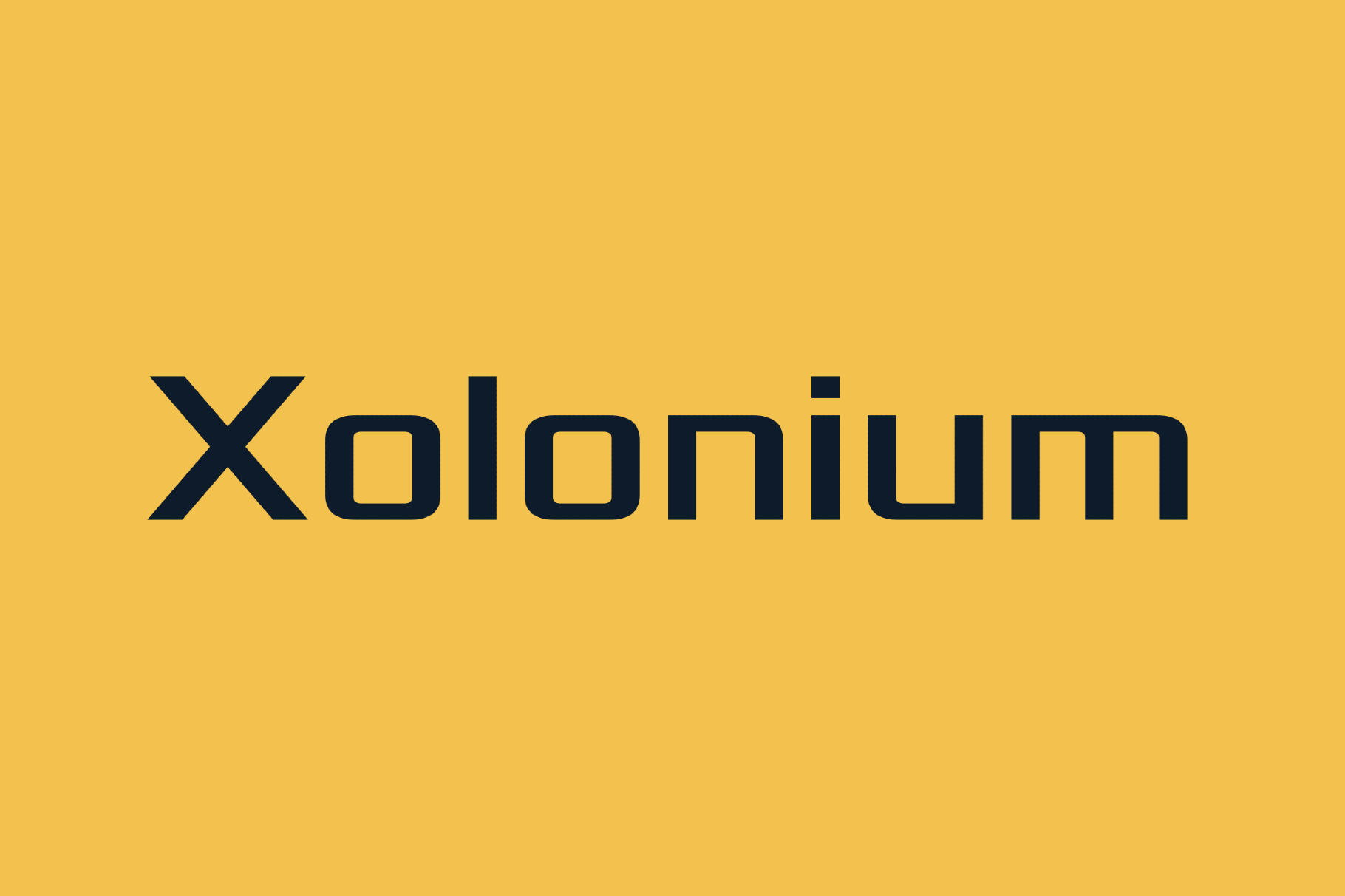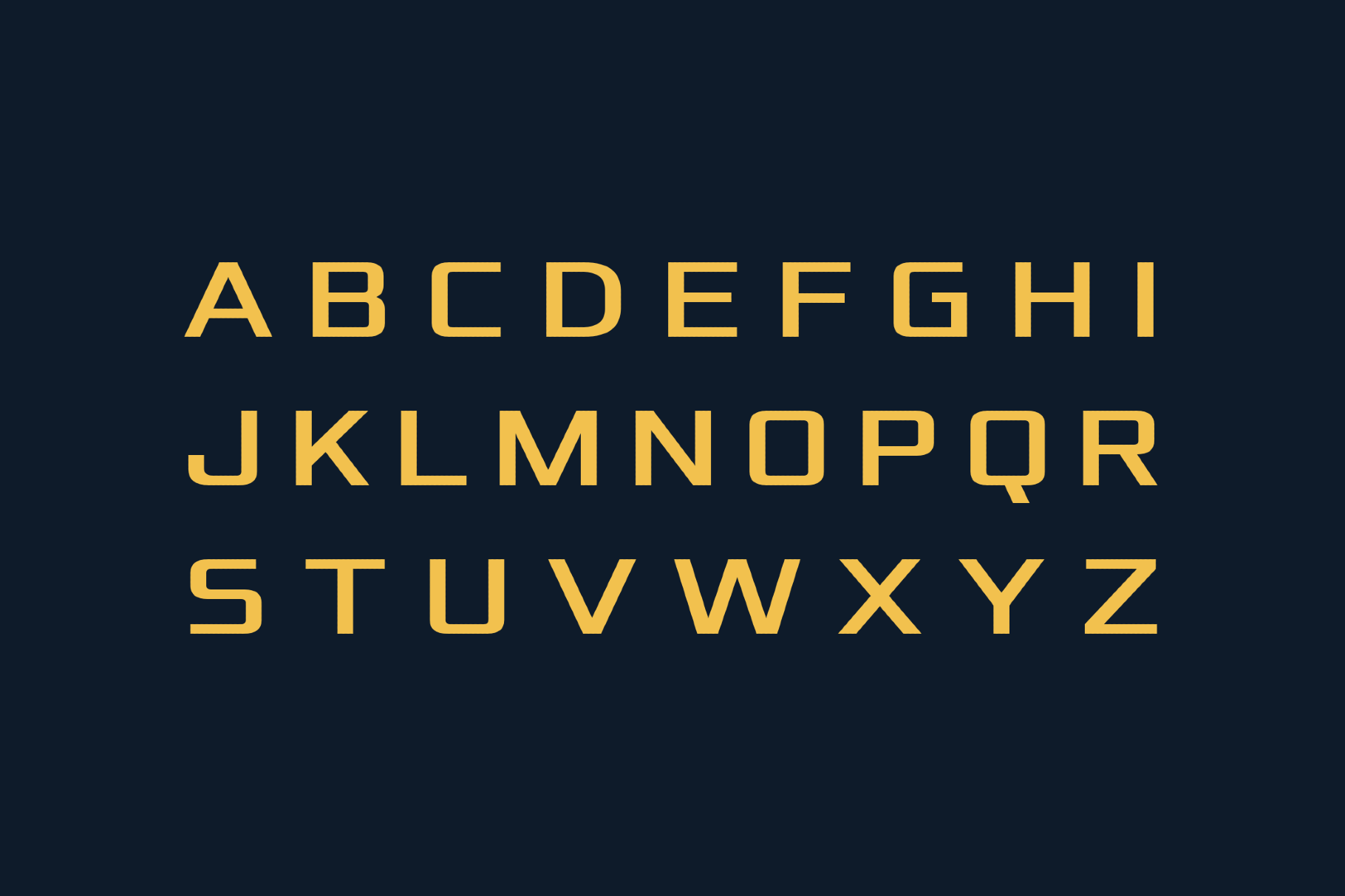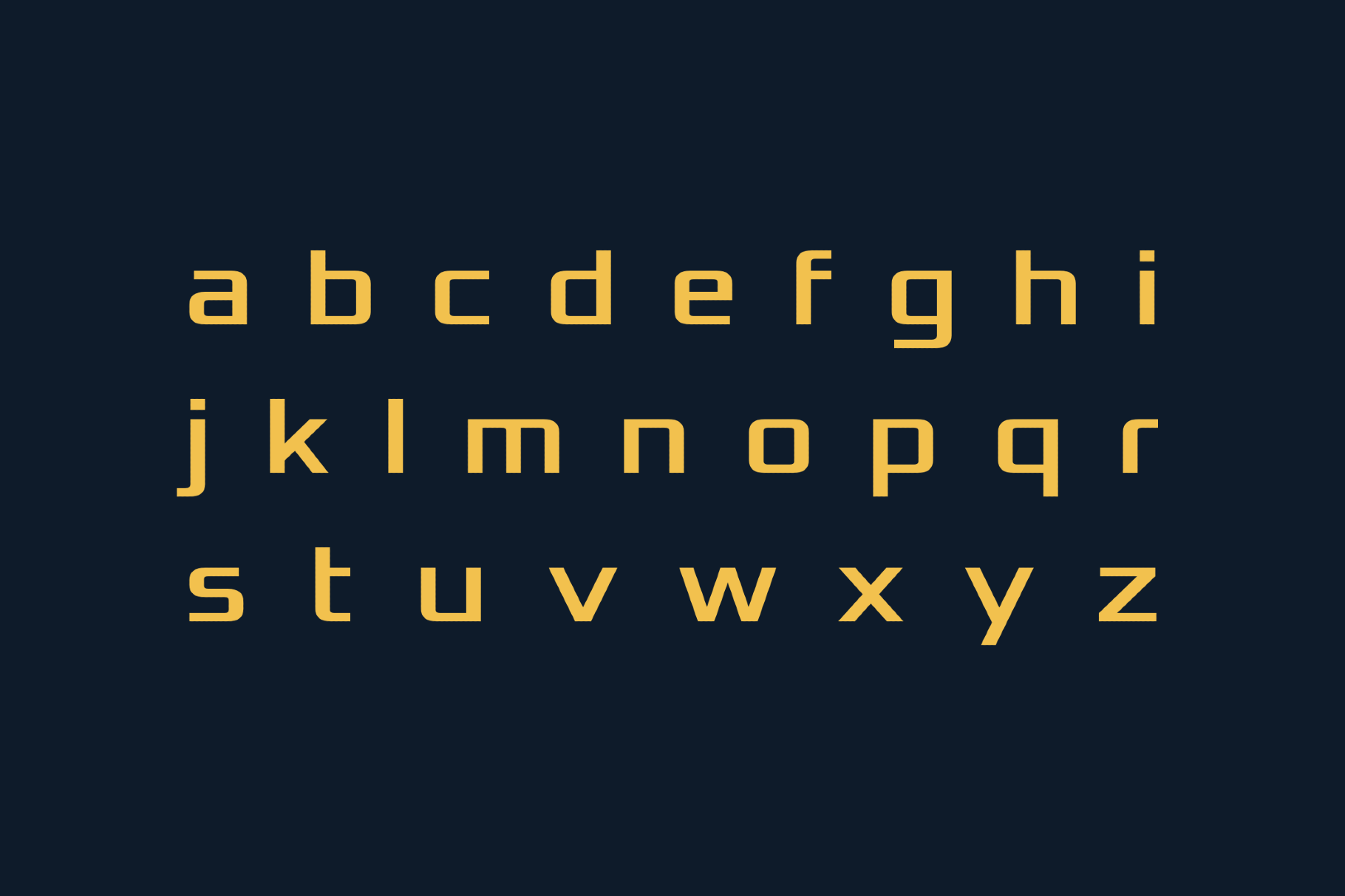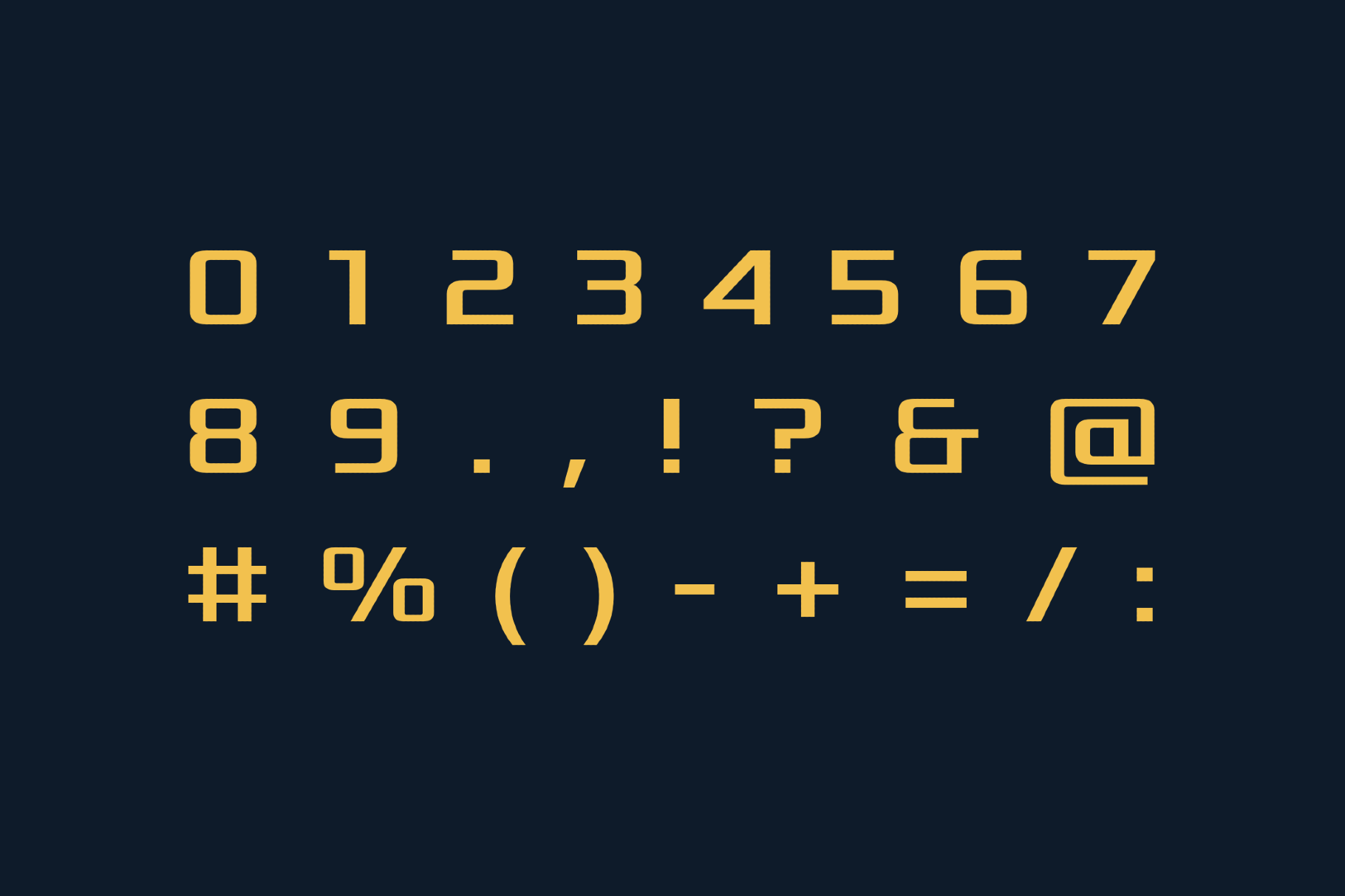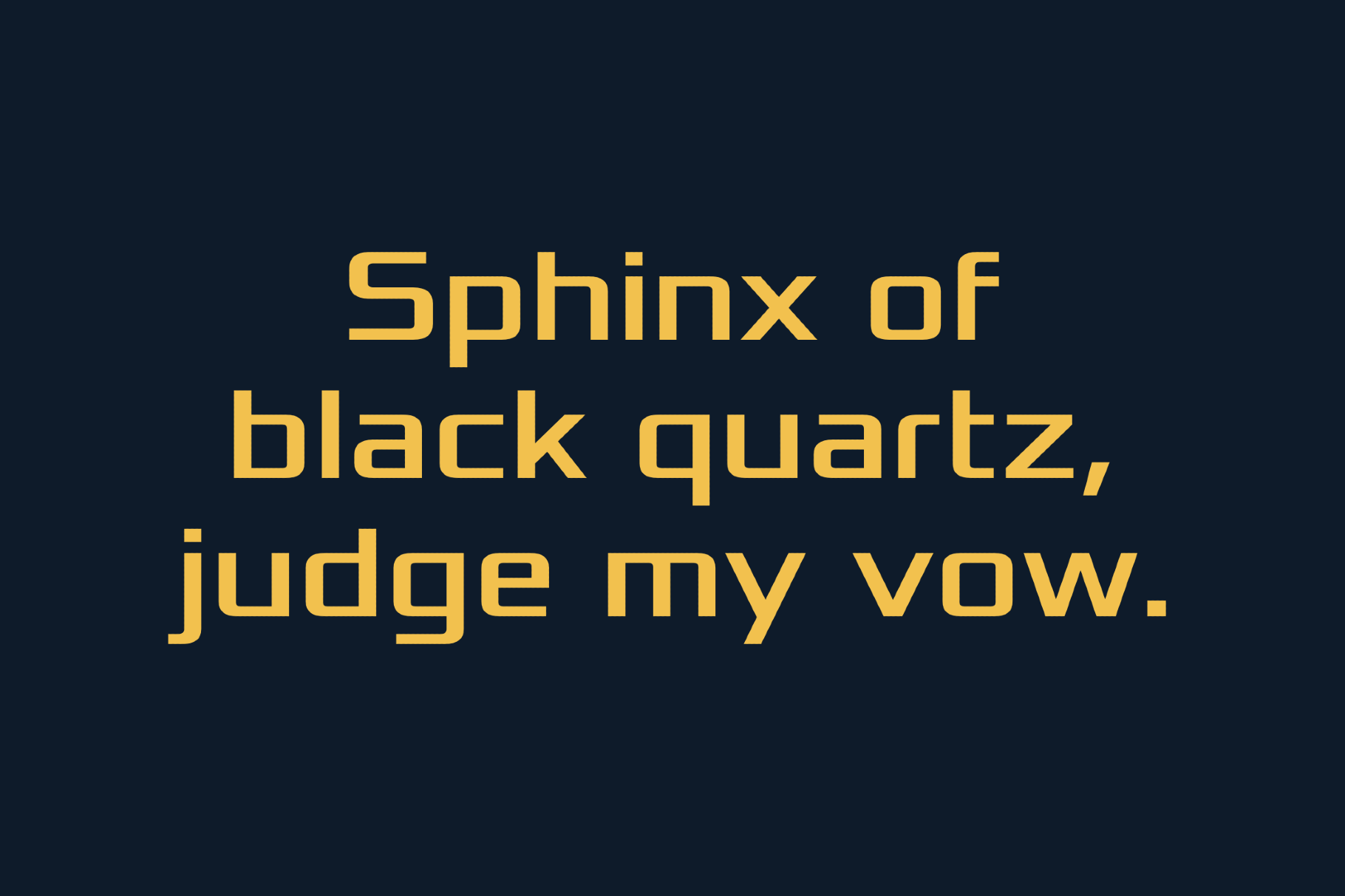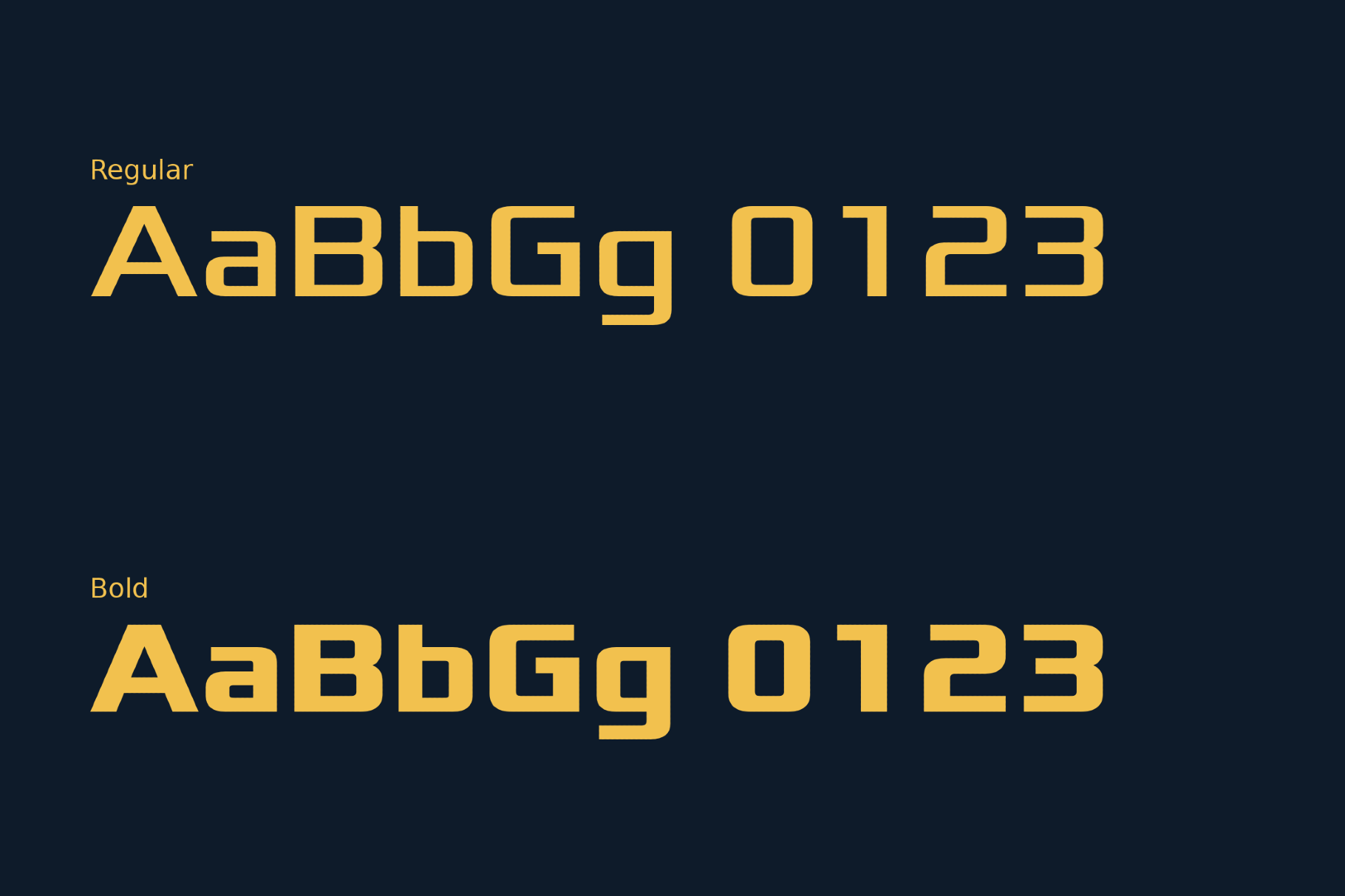
Xolonium - 90s Sci-Fi Font
Xolonium pulls from the clean geometric logic of late-1990s science fiction interface design — the kind used in space simulator cockpits, tech thriller title sequences, and early online gaming scoreboards. Its precise terminals and monolinear construction give it a rigorous, calibrated feel that never tips into pastiche.
It works for sci-fi editorial headers, technology brand identity, UI mockups, game HUD typography, esports event graphics, album artwork, and branding that draws on precision and rationalism.